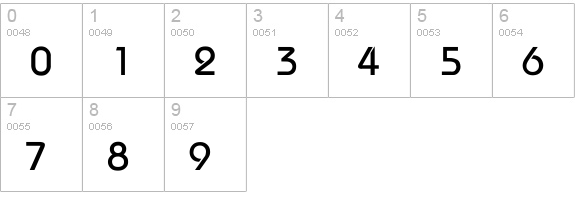
Bauhaus Font Details
The Bauhaus font is a stylish and modern typeface that embodies the essence of the Bauhaus design movement. With its clean lines, geometric shapes, and minimalist aesthetic, this font is perfect for adding a touch of sophistication to any project. Whether you're designing a logo, creating a brochure, or crafting a website, the Bauhaus font will help you stand out from the crowd. What's even better is that the Bauhaus font is completely free to download at FontsMarket.com. This means you can access this versatile typeface without breaking the bank, making it a cost-effective choice for designers and creatives alike. Don't miss out on the opportunity to enhance your work with the Bauhaus font - download it today and elevate your design projects to new heights.